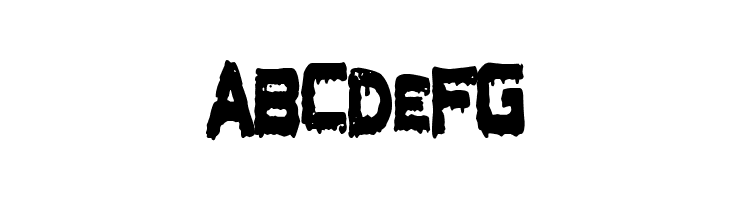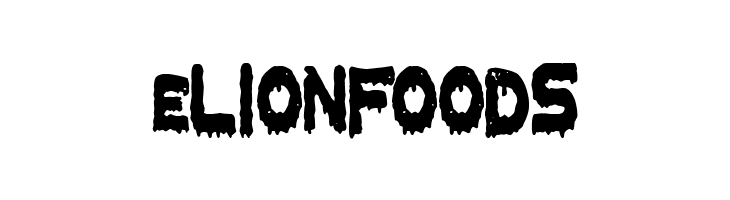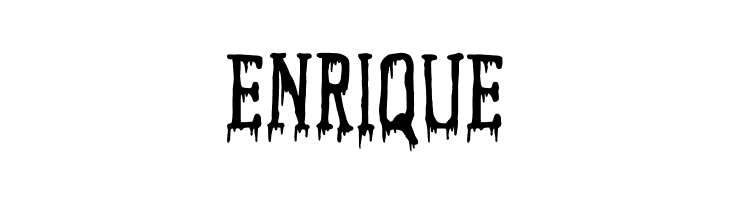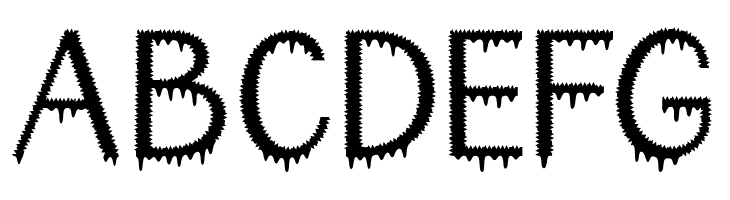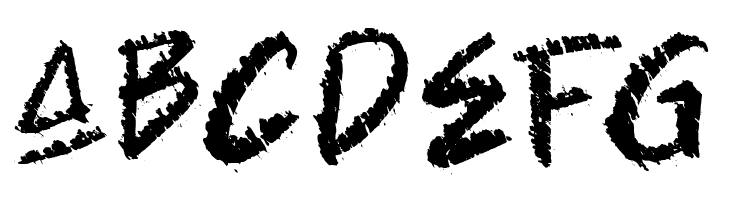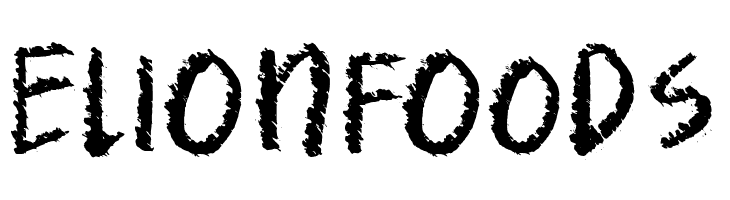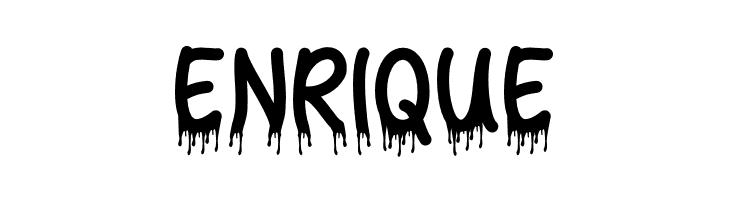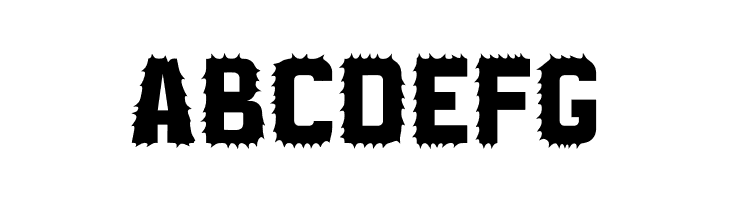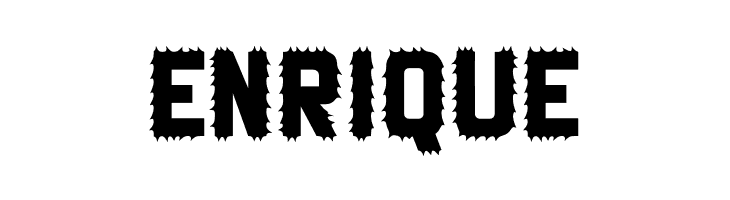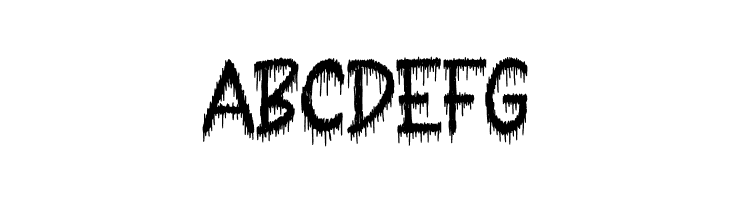
A bold, condensed font with a dripping, blood-like appearance, ideal for horror themes.
A bold, distressed font with a horror-themed, dripping effect.
A spooky, dripping decorative font ideal for horror themes.
A jagged, dripping font ideal for spooky themes.
A jagged, distressed font perfect for spooky and mysterious themes.
A bold, dripping font perfect for horror-themed designs.
A bold, jagged font with a spooky, dynamic design.
A bold, dripping font perfect for horror and Halloween themes.
A bold, dripping font ideal for horror or Halloween themes.
A spooky, irregular font with sharp, dripping edges, perfect for horror themes.
A playful, spooky font with jagged, uneven characters perfect for Halloween themes.
A spooky, dripping font perfect for horror themes.
A chilling, horror-themed font with jagged, dripping characters.
Halloween-themed decorative dingbat font with bold, spooky icons.
A spooky, dripping font perfect for Halloween themes.
A bold, corroded font with a haunting, gothic style.
A bold, distressed font with a dripping effect, perfect for horror themes.
A spooky, dripping font ideal for Halloween themes.
A spooky, Halloween-themed decorative font with playful, eerie elements.
A bold, jagged font with a spooky, distressed style.
A bold, jagged font with a spooky, monstrous aesthetic.
A bold, jagged font with a spooky, monster-like appearance.
A spooky, dripping font perfect for horror themes.
A jagged, eerie font perfect for horror themes.
A bold, jagged font with a chilling, horror-themed aesthetic.
An eerie, jagged font with a twisted, vine-like appearance.
A bold, dripping font perfect for horror-themed designs.
A jagged, eerie font perfect for horror themes.
A decorative Halloween-themed font with spooky silhouettes and playful designs.
A chilling, jagged font ideal for horror-themed designs.
A jagged, eerie font ideal for horror-themed projects.
A jagged, horror-themed font with sharp, irregular edges.
A bold, rugged font with a gothic, hand-carved appearance.
A bold, jagged font with a spooky, horror-inspired design.
A bold, dripping font ideal for horror themes and eerie designs.